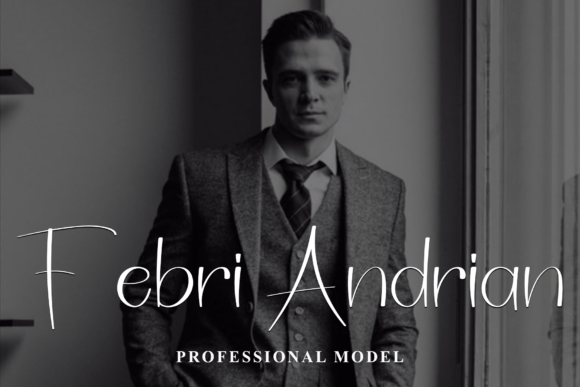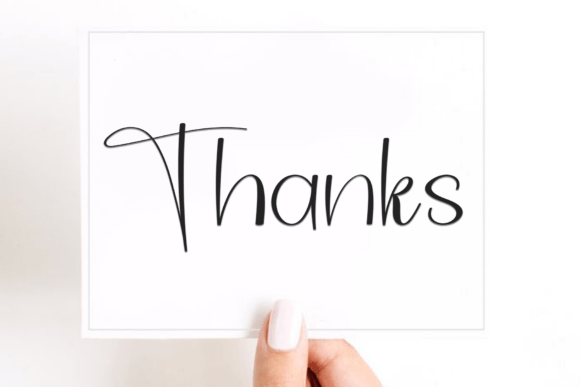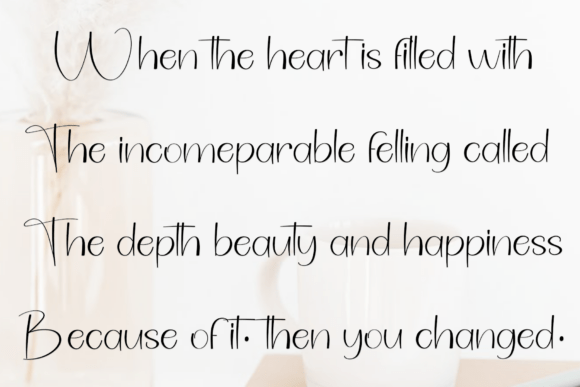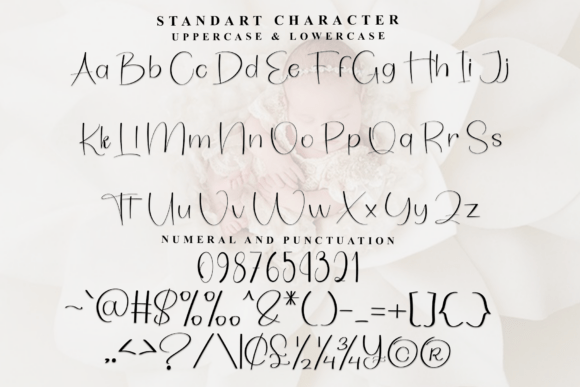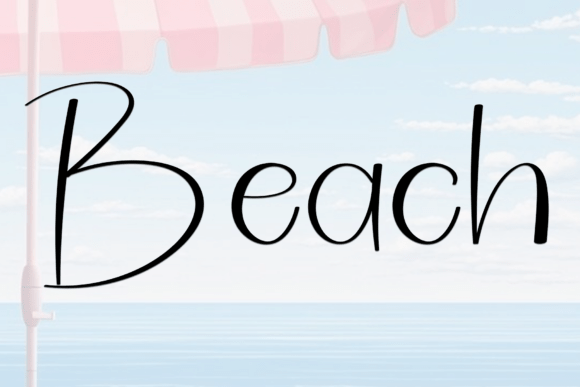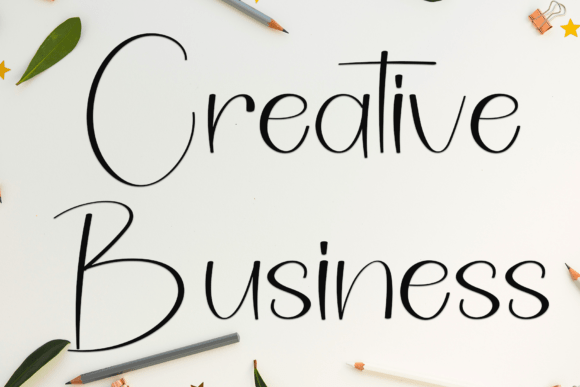
The Daddy Font: A Casual and Creative Companion for Designers
I’ll never forget the time I was working on a project for a client’s birthday party invitation. I had the design concept nailed down, but I just couldn’t find the right font to bring it all together. The invitation needed to feel playful, yet elegant, and I was determined to find the perfect match. That’s when I stumbled upon the Daddy Font. It was love at first sight! ✨ The round, playful strokes and charming, hand-drawn aesthetic instantly captured the tone I was going for. In this article, I’ll share my experience with the Daddy Font, its features, and how to make the most of it in your designs.
An Honest Review of Daddy Font
- ✨ The casual and creative vibe it brings to any design
- ✅ Perfect for personal projects, invitations, and social media graphics
- 🎉 Charming, hand-drawn aesthetic that adds a fun and unique touch
- 💻 Equipped with standard PUA Encoded glyphs for seamless integration with various design applications
While the Daddy Font is an excellent choice for many design projects, there are a few things to keep in mind. 🤔
- ⚠️ Limited use for formal or corporate designs, as it’s more suited for casual and creative projects
- ⚠️ May not be the best choice for very long texts, as its playful nature might get tiresome to read
The Story Behind Daddy Font
The Daddy Font was created with the intention of bringing a sense of warmth and friendliness to design projects. Its designer aimed to craft a font that felt approachable and relaxed, perfect for personal and creative endeavors. While the exact story behind the font’s creation is unclear, its playful and charming aesthetic is sure to win over designers and crafters alike.
| What type of projects is the Daddy Font best suited for? | The Daddy Font is perfect for personal projects, invitations, social media graphics, and any design that requires a playful and creative touch. |
| Is the Daddy Font available in different languages? | The Daddy Font may have limited language support, but it does come with standard PUA Encoded glyphs, which can be used in various design applications. |